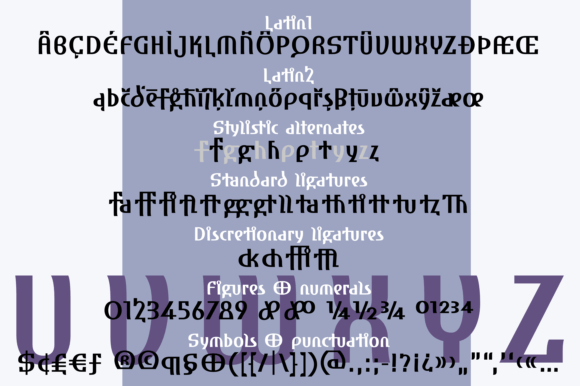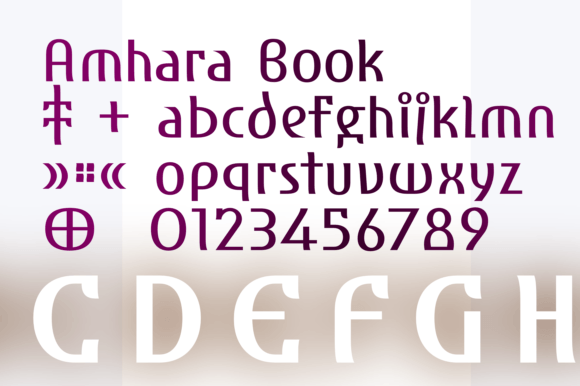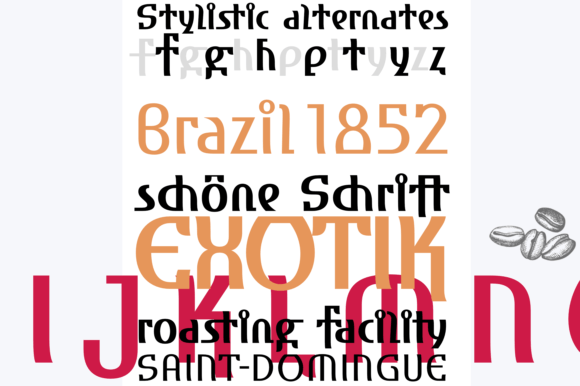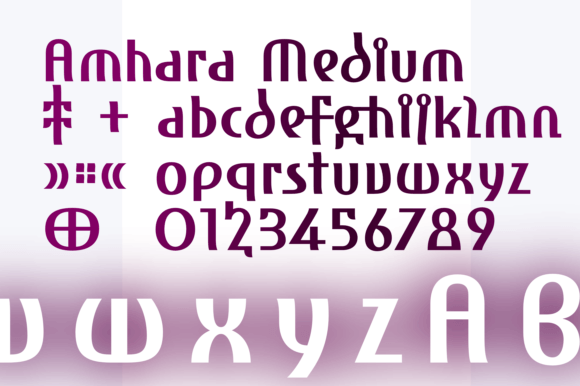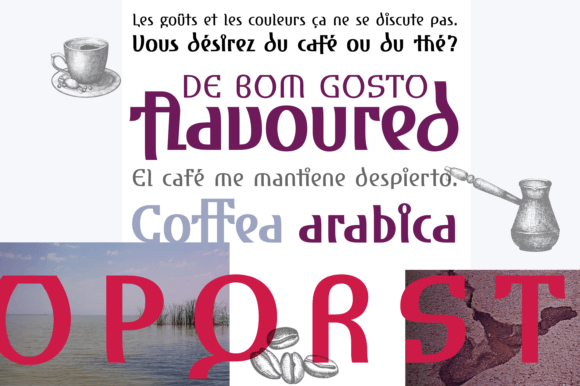
Discover the Unique Charm of Amhara Font: A Latin Alphabet Display Font Inspired by Ethiopian Ge’ez Script
In the world of typography, fonts play a crucial role in conveying messages, expressing emotions, and creating visual identities. For designers and crafters, finding the perfect font can be a daunting task, especially when looking for something unique and distinctive. This is where Amhara Font comes in – a Latin alphabet display font that draws inspiration from the Ethiopian Ge’ez script, offering a blend of traditional and modern elements.
The Origins of Amhara Font
Amhara Font is a creative interpretation of the Ethiopian Ge’ez script, which is an ancient writing system used in Ethiopia. The Ge’ez script is characterized by its distinctive letterforms, which are traditionally written with an expanded pen tip. This technique gives the script a unique, flowing quality that is both elegant and expressive.
The Amhara Font takes this traditional script and adapts it to the Latin alphabet, creating a display font that is both modern and nostalgic. The font’s design is rooted in the ductus, or the way letters are written with a pen or brush. This approach gives Amhara Font its distinctive, hand-crafted feel that is reminiscent of uncial scripts from late antiquity and the early Middle Ages.
Design Characteristics of Amhara Font
Amhara Font boasts a range of design characteristics that make it stand out from other display fonts. Some of its key features include:
• Expanded Pen Tip: The font’s letters are designed with an expanded pen tip, giving them a subtle, handwritten quality.
• Uncial Influence: The font’s ductus and letterforms are influenced by uncial scripts, which were used in ancient manuscripts.
• Latin Alphabet Adaptation: Amhara Font adapts the Ge’ez script to the Latin alphabet, creating a unique and distinctive display font.
• Sacramental Effect: The font’s design gives it a somewhat sacramental effect, making it perfect for projects that require a sense of elegance and sophistication.
Uses of Amhara Font
Amhara Font is a versatile display font that can be used in a range of design projects, including:
• Logos and Branding: The font’s unique design makes it perfect for logos and branding projects that require a distinctive, hand-crafted feel.
• Headings and Titles: Amhara Font is ideal for headings and titles, adding a touch of elegance and sophistication to any design.
• Signage and Display: The font’s large, expansive letterforms make it perfect for signage and display projects.
• Packaging and Product Design: Amhara Font can add a touch of uniqueness and character to packaging and product design projects.
Why Designers and Crafters Love Amhara Font
Designers and crafters love Amhara Font for its unique blend of traditional and modern elements. The font’s distinctive design makes it stand out from other display fonts, offering a fresh alternative for designers looking to create something new and exciting.
The font’s versatility and range of uses also make it a favorite among designers and crafters. Whether you’re working on a logo, heading, or signage project, Amhara Font is a great choice.
Amhara Font is a unique and distinctive display font that offers a blend of traditional and modern elements. Inspired by the Ethiopian Ge’ez script, the font boasts a range of design characteristics that make it perfect for designers and crafters looking for something new and exciting.
Whether you’re working on a logo, heading, or signage project, Amhara Font is a great choice. Its versatility, range of uses, and distinctive design make it a valuable addition to any designer’s toolkit.